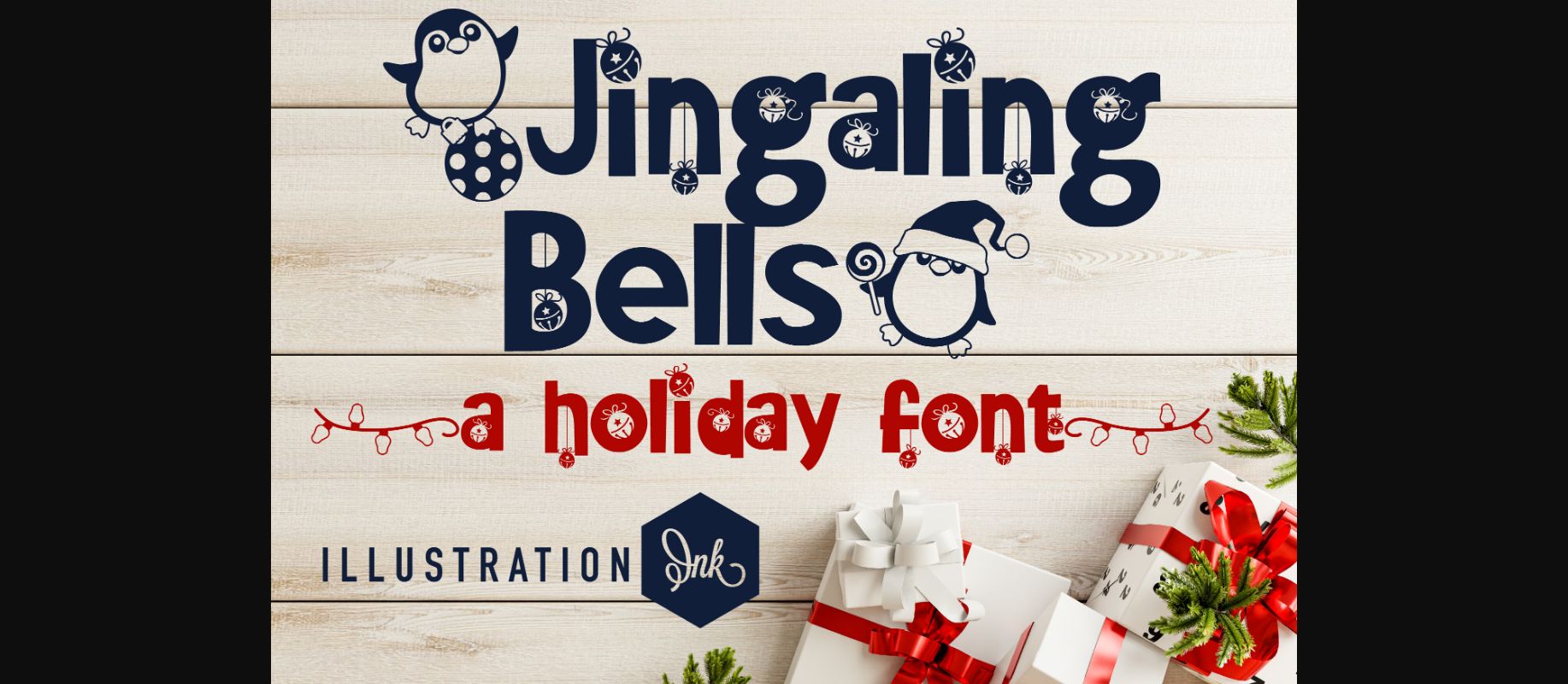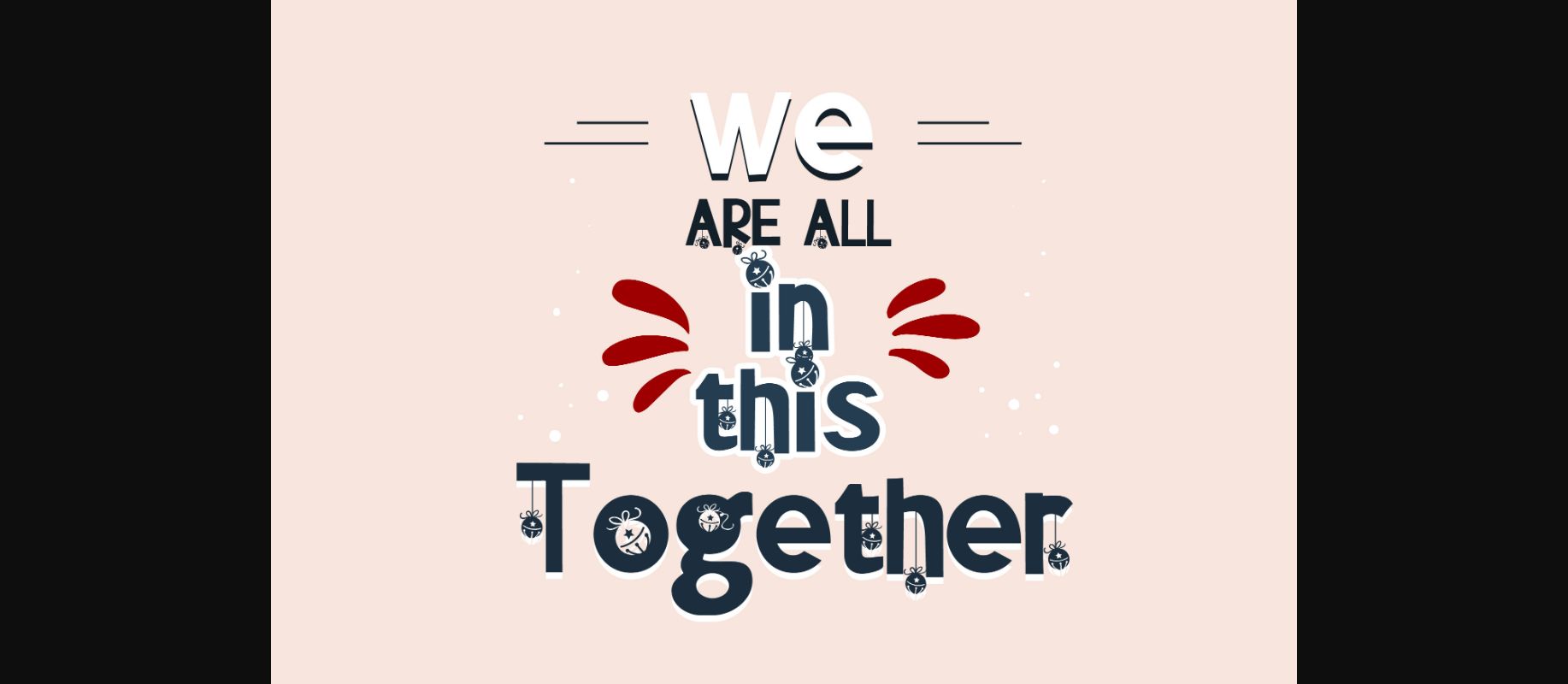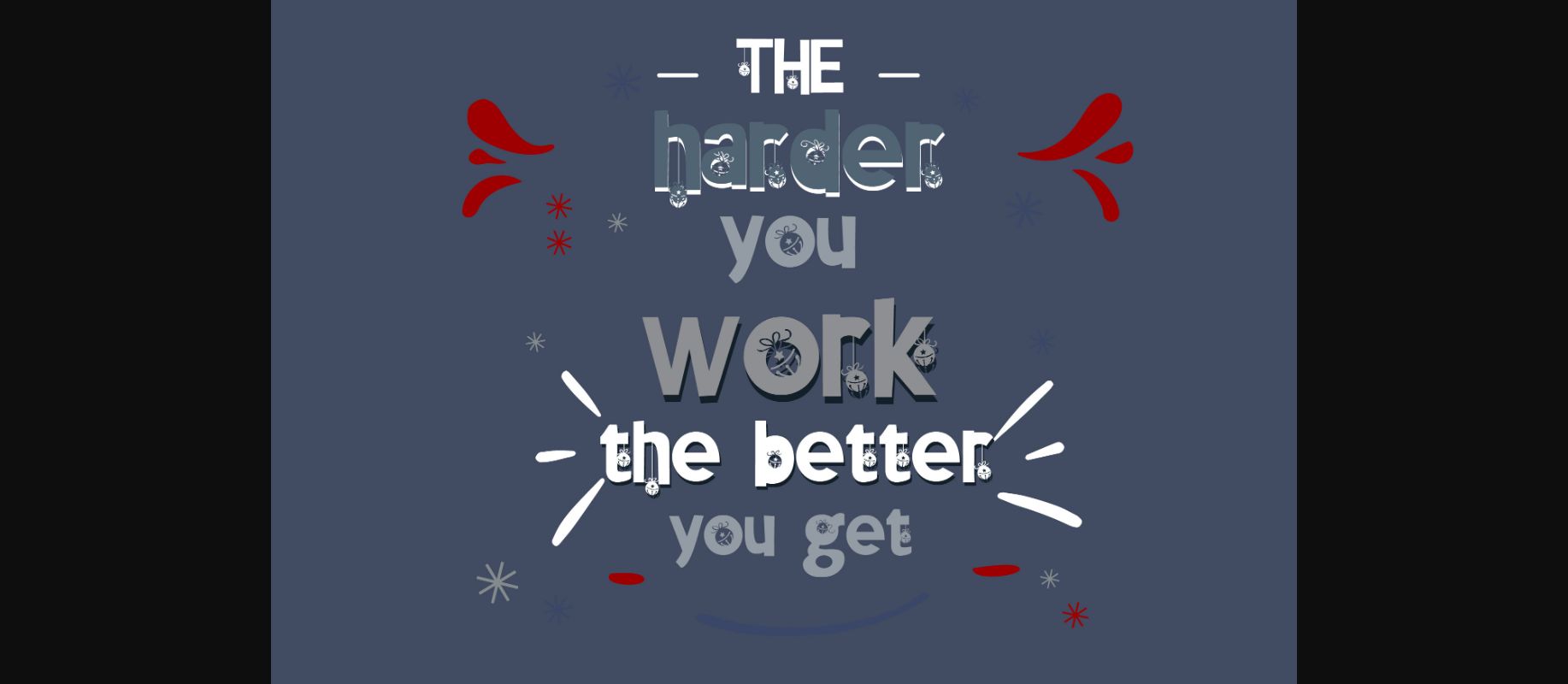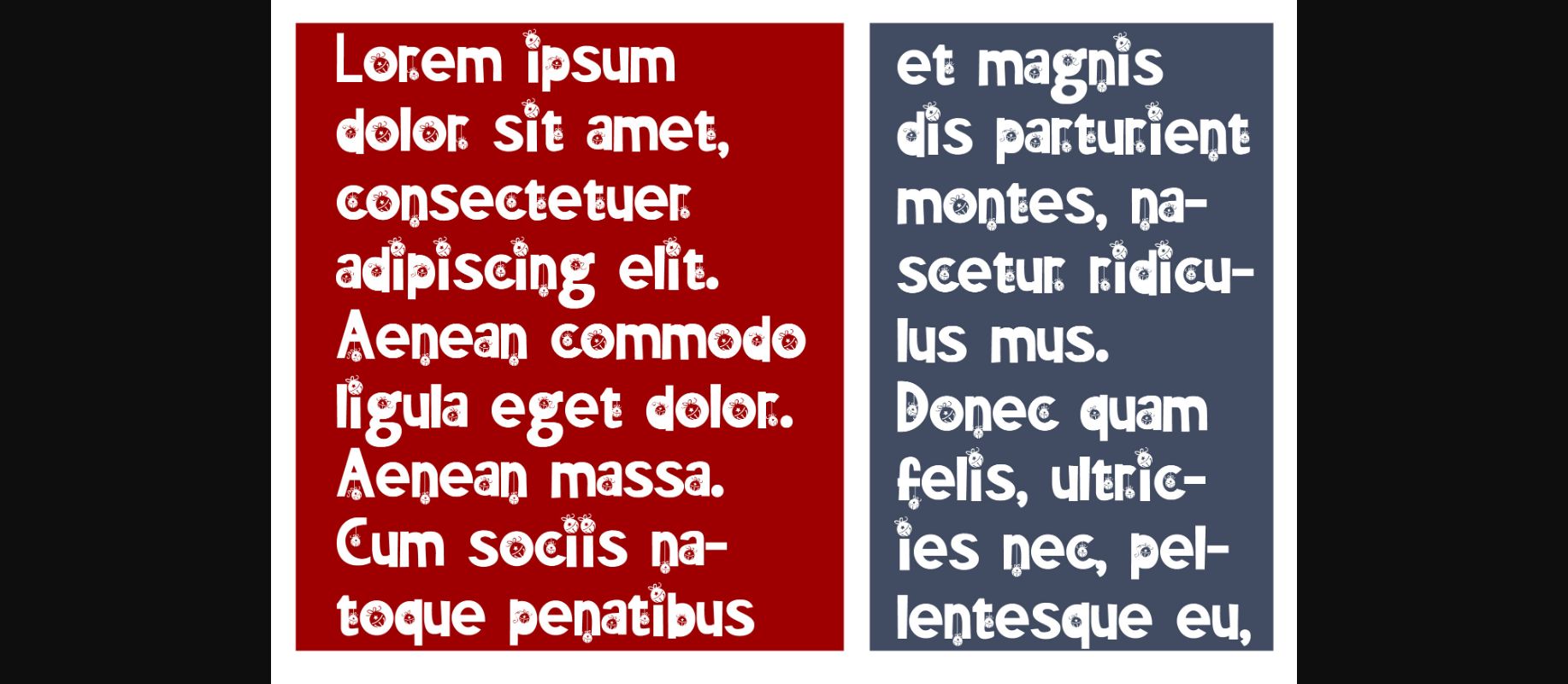
About Jingaling Bells Font
This crafty, hand-made sans serif features festive holiday penguins for the greater than and less than glyphs and you can access a strand of lights for a flourish with your system’s glyph map or by typing the single guillemet glyphs.
A hand-crafted font is a font that is designed to look like it was written by hand. It is often used for invitations, greeting cards, and other items. Handwritten fonts can be either formal or informal, and they can be used for a variety of purposes.
Handwritten fonts can be a great way to add a casual touch to your designs. They can also be used to create a sense of nostalgia or whimsy. However, it is important to choose a handwritten font that is appropriate for the project you are working on. A formal handwritten font may not be appropriate for a casual invitation, while an informal handwritten font may not be appropriate for a corporate document.
A hand-crafted font is a font that is designed to look like it was written by hand. It is often used for invitations, greeting cards, and other items. Handwritten fonts can be either formal or informal, and they can be used for a variety of purposes.
Handwritten fonts can be a great way to add a casual touch to your designs. They can also be used to create a sense of nostalgia or whimsy. However, it is important to choose a handwritten font that is appropriate for the project you are working on. A formal handwritten font may not be appropriate for a casual invitation, while an informal handwritten font may not be appropriate for a corporate document.